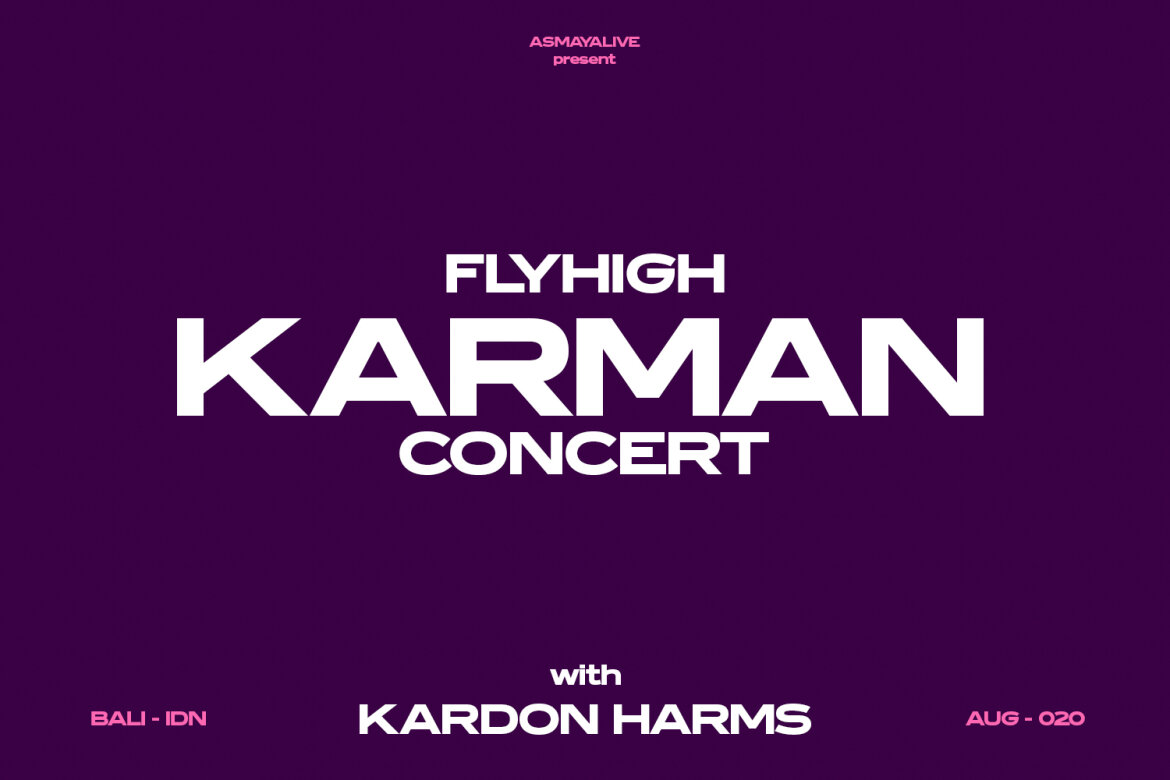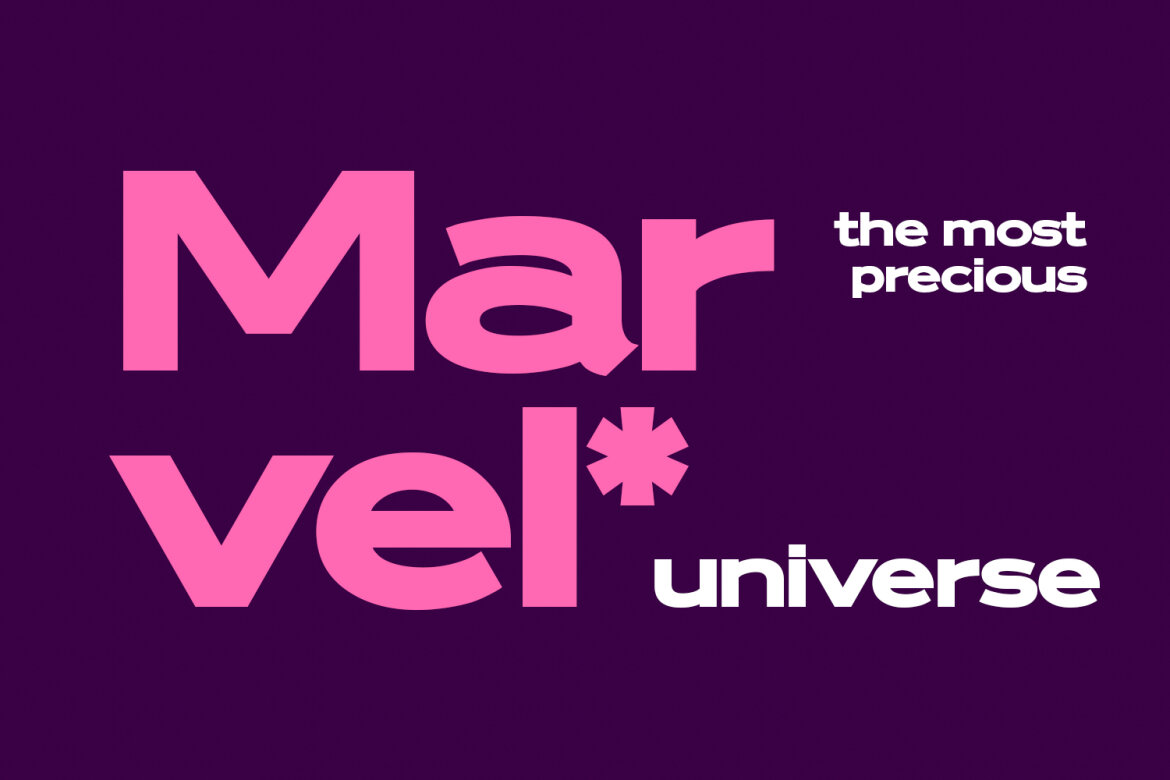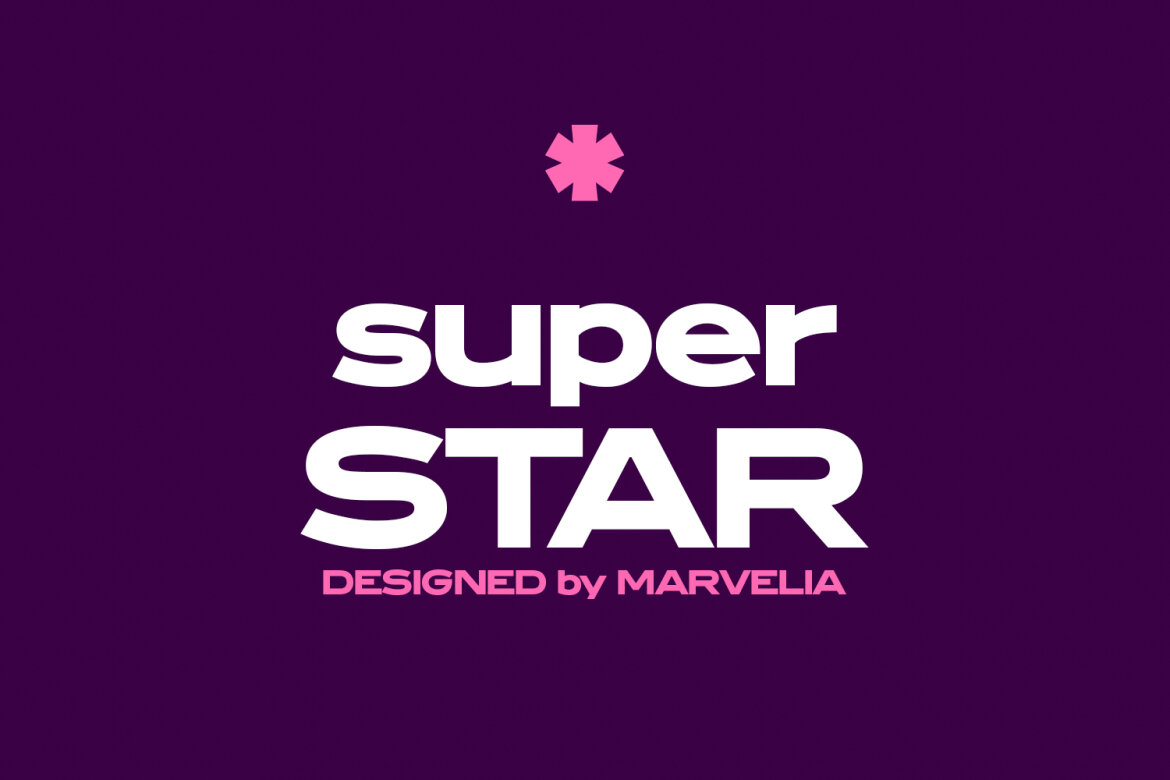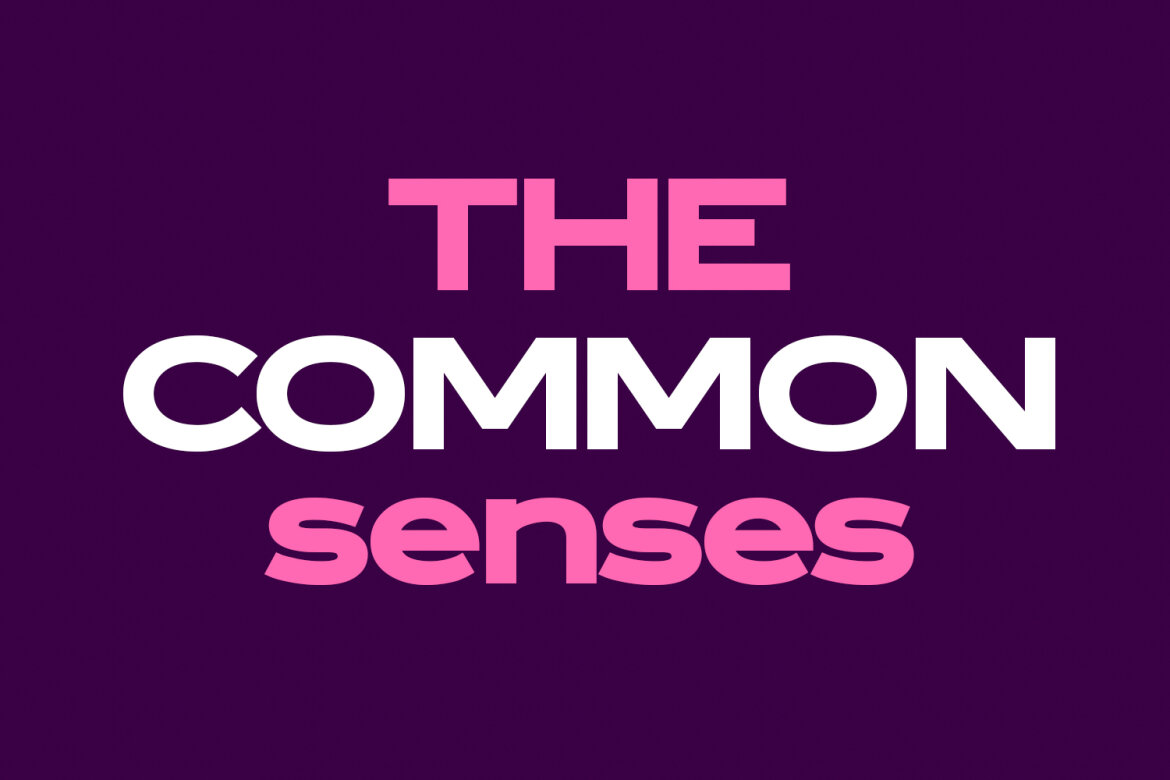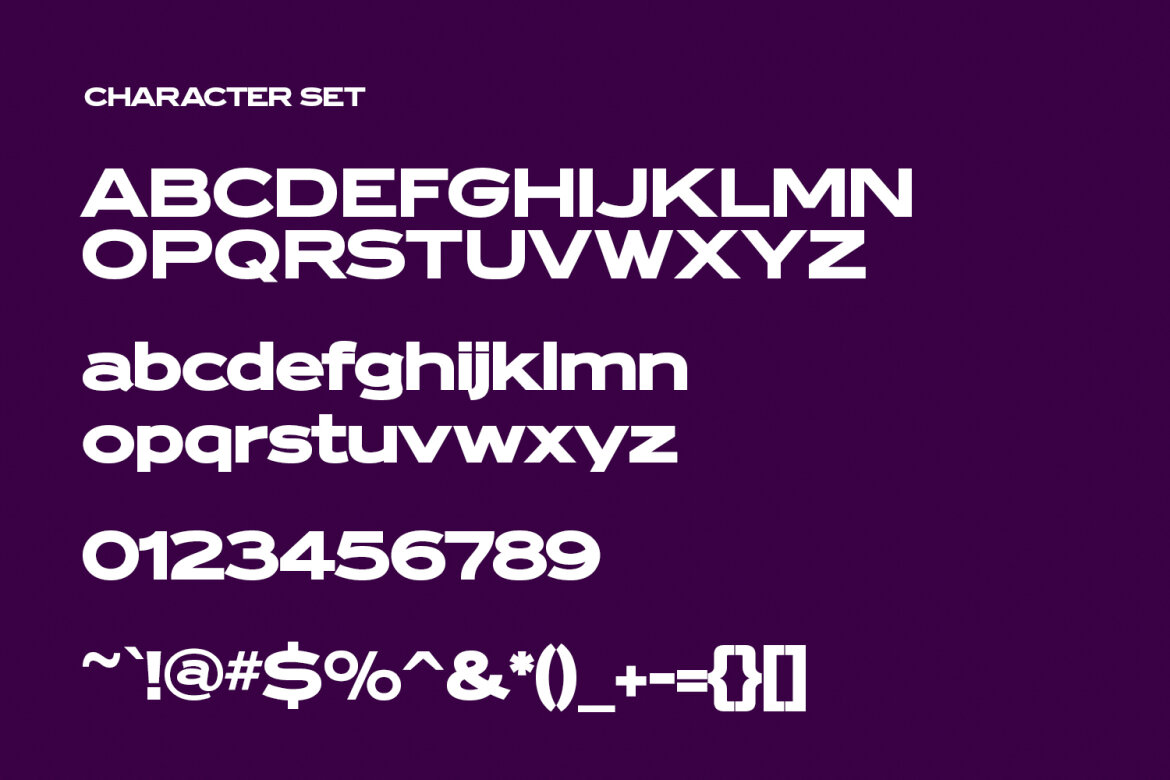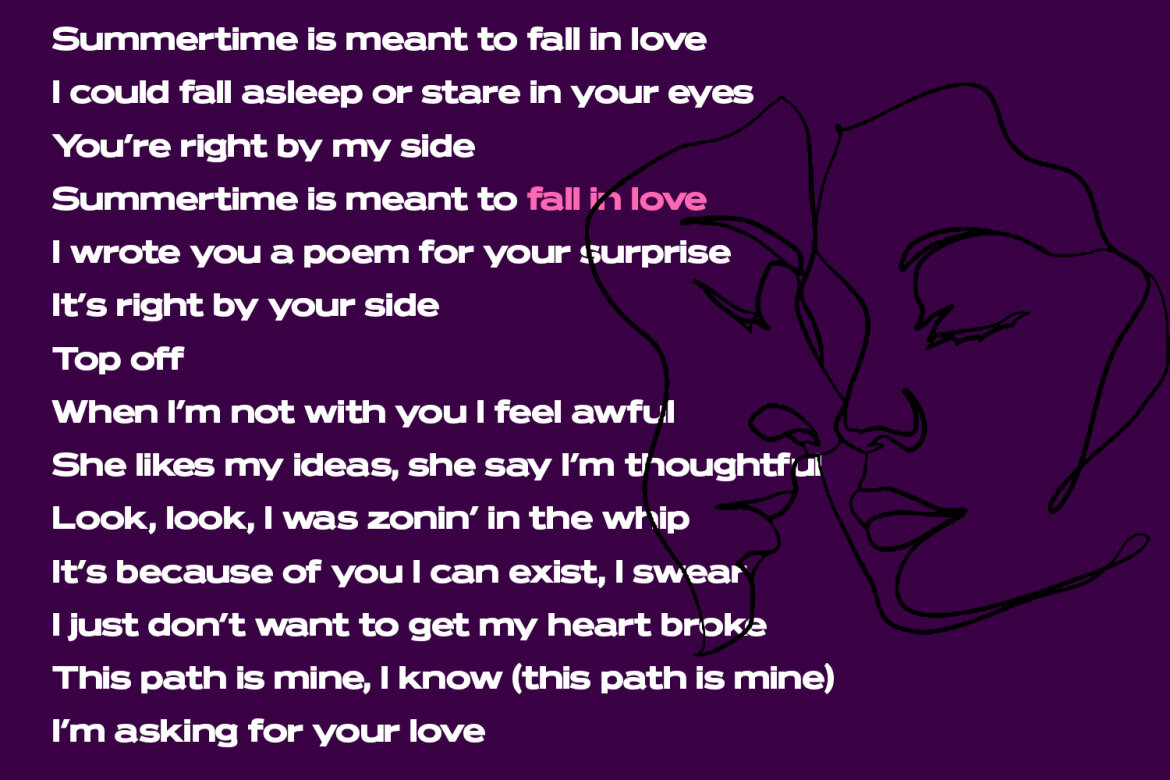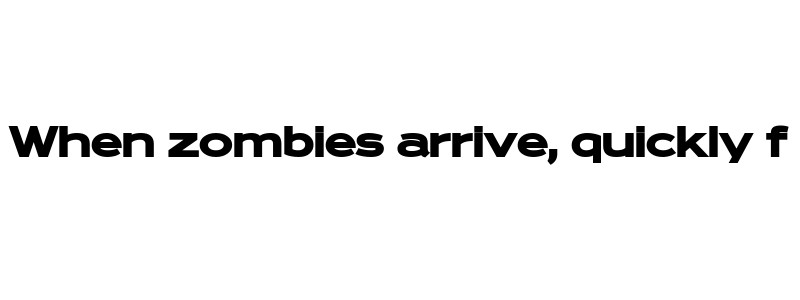
Glasser Extended Sans FREE Font
Glasser
Glasser is a modern wide sans display font. Bold stroke, fun character with a bit of ligatures and alternates. To give you an extra creative work. Glasser font support multilingual more than 100+ language. This font is good for logo design, Social media, Movie Titles, Books Titles, a short text even a long text letter and good for your secondary text font with script or serif. Make a stunning work with Glasser font.